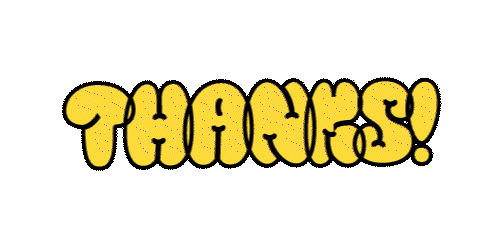
CS Devious Stippled Font
CS Devious Stippled Font – Psychedelic Font: Funky Energy with Textured Expression Modern Psychedelic Display with Stippled Texture. This is a modern psychedelic display font that features flowing curves, distorted shapes, and expressive letterforms that radiate funky, cheerful energy. Inspired by the vibrant aesthetics of psychedelic design, the font embraces unconventional structures that create a lively and attention-grabbing visual style. The addition of a stippled texture introduces a subtle dotted surface, adding depth and a handcrafted character that enhances its artistic appeal.